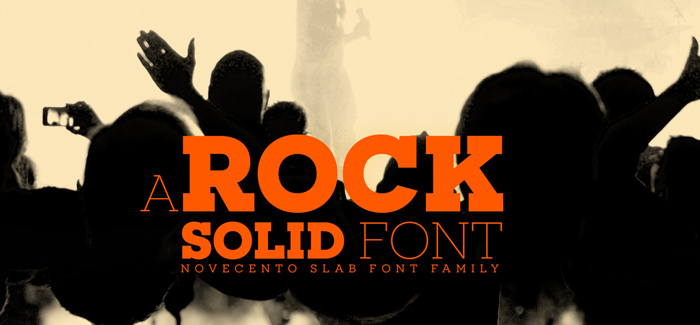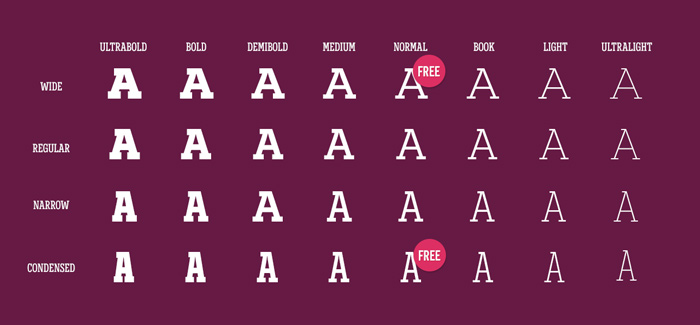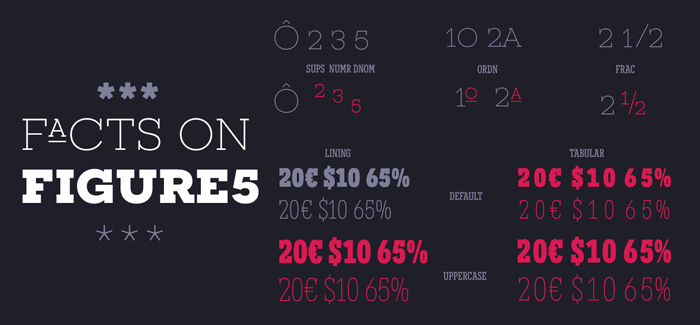
Novecento Slab font
Novecento Slab font by Jan Tonellato is the slab serif mate of Novecento Sans, a font family laid on the Europian typographic legacy from the period between the second half of 19th to the first half of the 20th century. The typeface is aimed mostly to headline an visual identity designs, both in big and small sizes. Novecento Slab family comes in 32 styles, 76 latin based languages, 590 glyphs and 16 stylistic opentype features for advanced typography.
Novecento Slab family is accurately spaced and kerned; each font has between 750 and 950 group kerning pairs. It can be mixed with Novecento Sans, or used on its own.